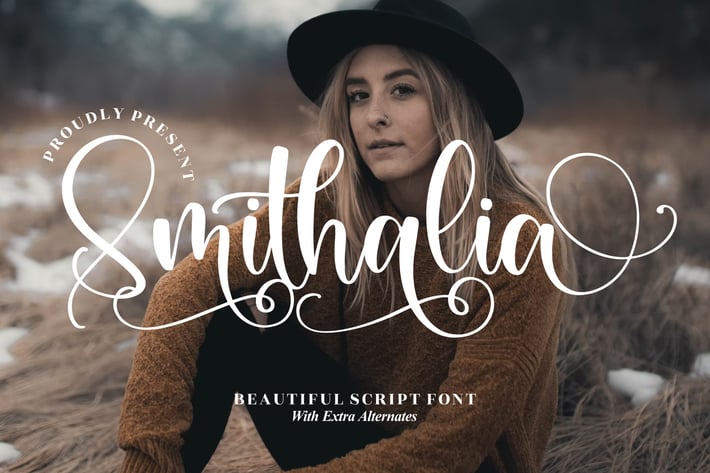
Smithalia Script Font
Smithalia is a stunningly elegant script with smooth swashes and intricate alternates, designed to bring a touch of sophistication to any project. With its graceful strokes and flowing style, this font enhances your creative work, whether digital or print, with timeless beauty.
+ Beautiful script font with elegant swashes
+ Includes extra alternates for versatility
+ Smooth and natural handwriting style
+ Regular and italic variations
+ Wedding invitations & stationery
+ Branding & logos
+ Social media graphics
+ Elegant packaging design
+ Greeting cards & thank you notes
Add timeless beauty to your designs with the delicate elegance of Smithalia Script Font. Perfect for when your project deserves a graceful, premium touch.